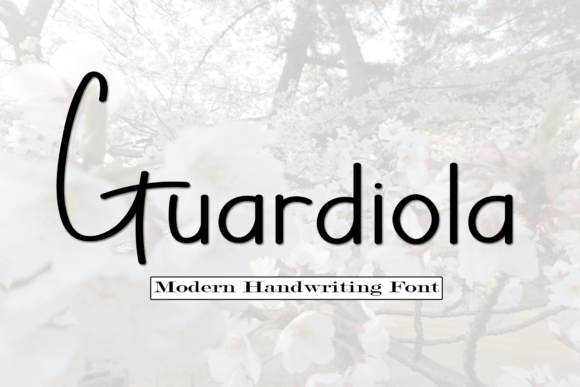
Journey into the realm of Guardiola Font, a captivating script that exudes elegance and charm. Its strokes, like a dancer's graceful movements, flow harmoniously, creating a visual symphony. With Guardiola, your designs will transcend the ordinary, capturing hearts and leaving a lasting impression.
Whether you're crafting heartfelt wedding invitations, expressing gratitude with thank-you cards, or sharing words of wisdom through quotes, Guardiola Font becomes your artistic partner. Its versatility extends to greeting cards, logos, and business cards, adding a personal touch that resonates with your audience.
Imagine your wedding invitations adorned with Guardiola's delicate swirls, each letter a testament to the love and joy you share. Your thank-you cards, handwritten with Guardiola's charm, will convey your heartfelt appreciation, leaving a lasting memory in the recipient's mind. Quotes, adorned with Guardiola's elegance, become timeless treasures, inspiring and motivating your readers.
Guardiola Font isn't just a font; it's an experience. It transforms ordinary designs into captivating masterpieces, effortlessly elevating your creative vision. Its beauty lies in its simplicity, allowing your words to shine through, captivating your audience with their emotional resonance.